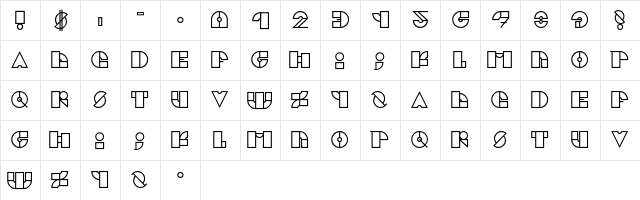
Cubik Regular
| Foundry | Seck Design |
| Designer | Nio Seck1 |
Design Context for Cubik Typeface
Cubik offers clean, dependable letterforms without strong stylistic allegiance, making it a practical choice for designers who need flexibility.